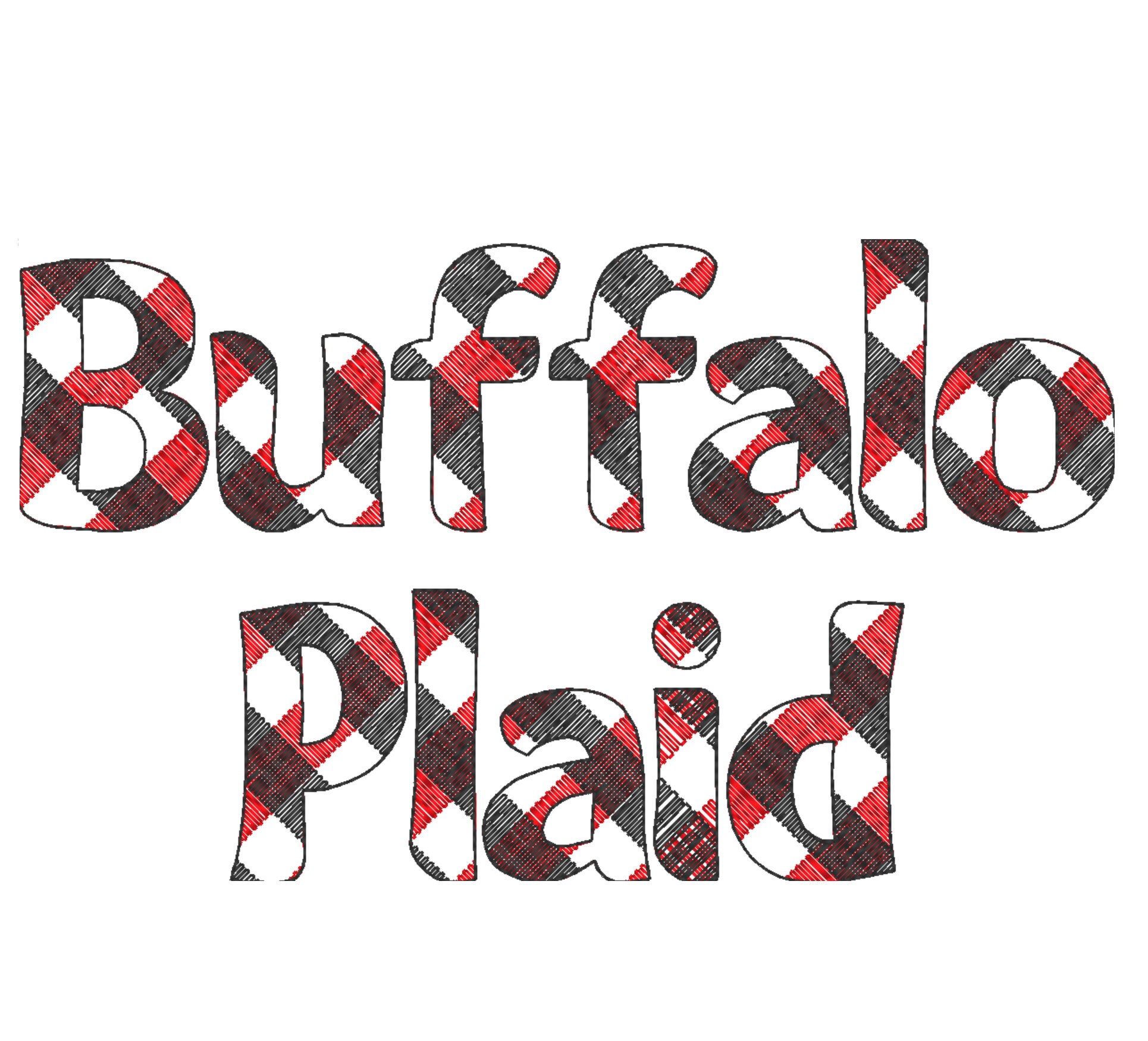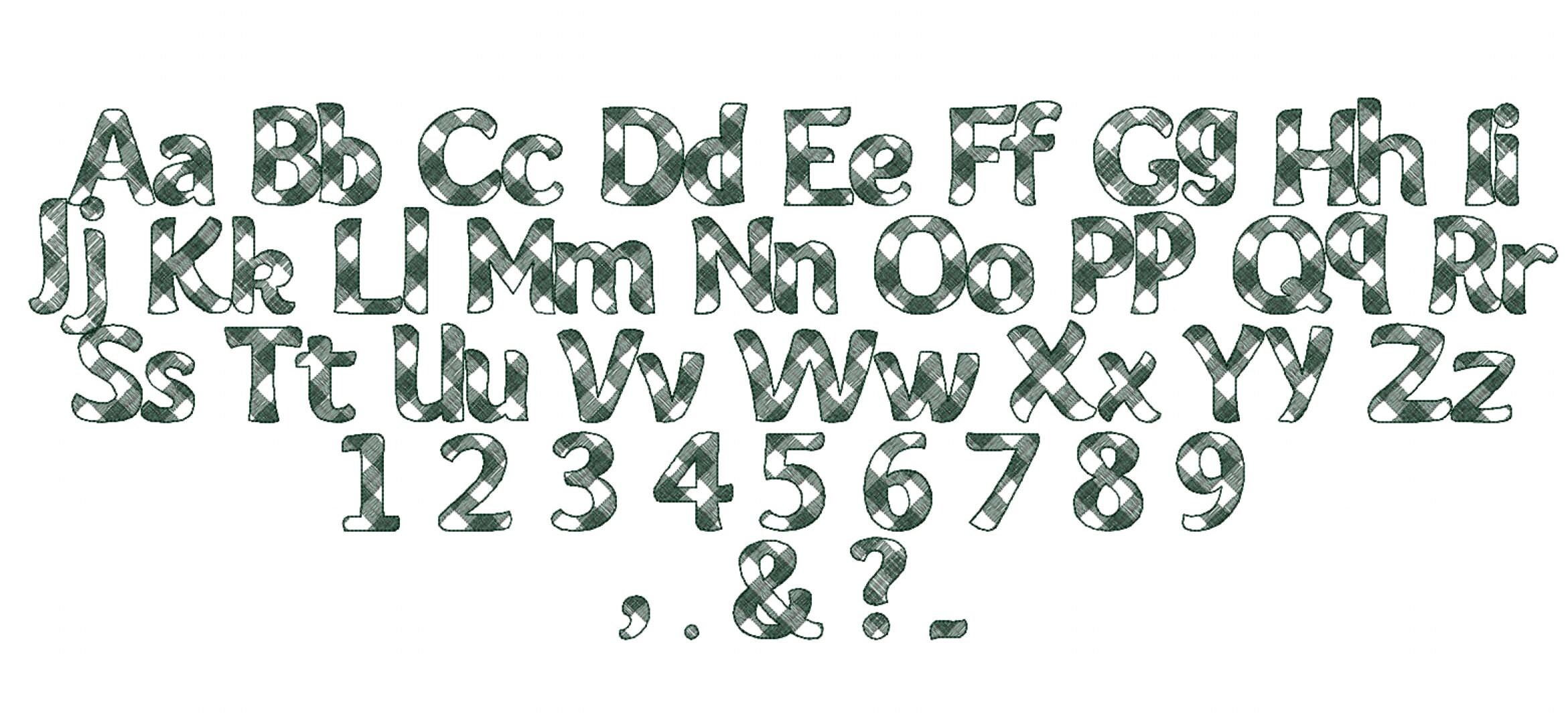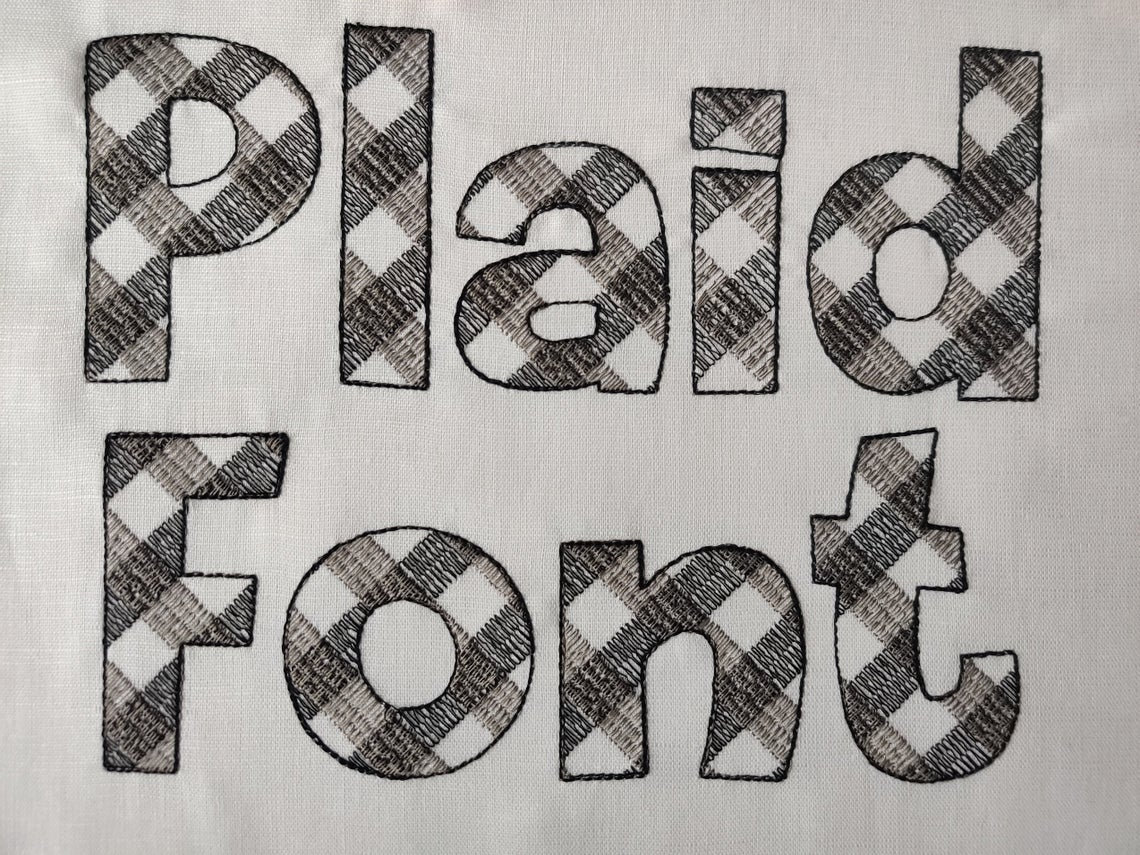
Buffalo plaid Tartan Gingham Font light sketch outline machine embroidery font alphabet letters 1.5, 2, 2.5, 3, 3.5, 4, 4.5, 5 and 6in
This is quick stitch designs, they look like laces, the background fabric looks through. Stunning effect. Gingham lines are part of the embroidery.